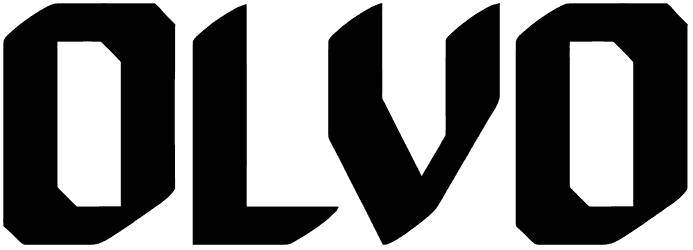
World of Spell Font
Meet World of Spell, a fun cartoon font with a bold, geometric display. It gives such a catchy, playful, and entertaining look to your project that makes it more outstanding. This font is a perfect choice for comic books, comedy movies, animation titles, video games, and other children-related designs.